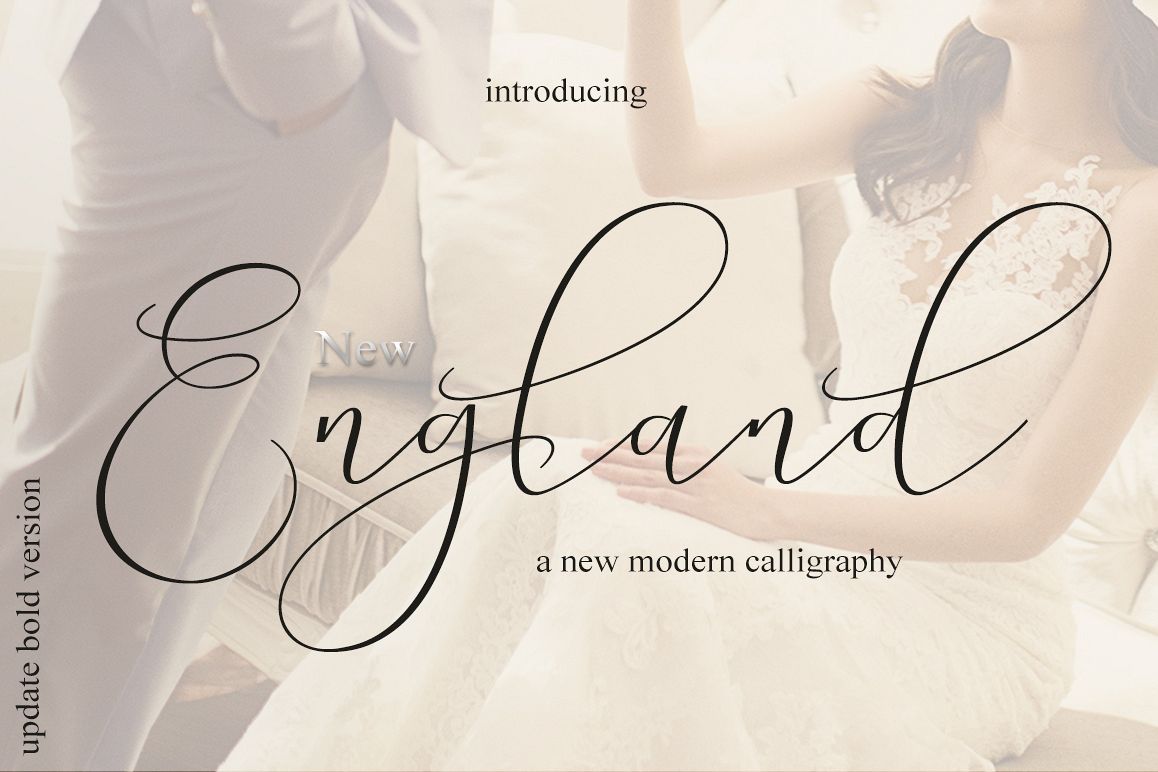
NEW England Script
New England Script
is a modern calligraphy font with
the current handwriting style, this font is perfect for branding,
wedding invites, magazines, mugs, business cards, quotes, posters, and
New England Script
is equipped with 670 glyphs. and
by having many of these glyphs there will be able to choose the letters
according to your likes, lots of variations and options for each letter,
so you can customize on your design choices.